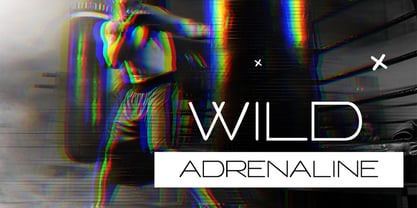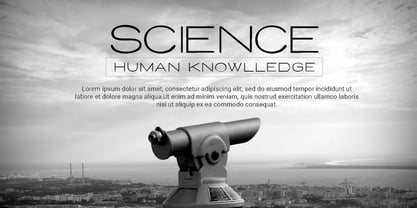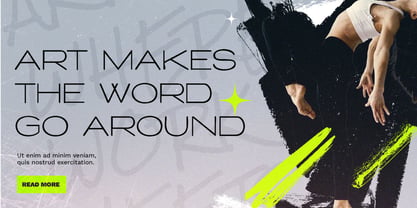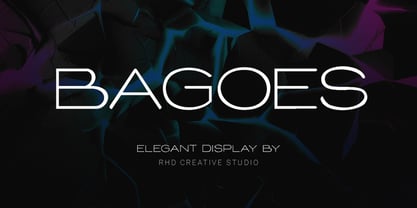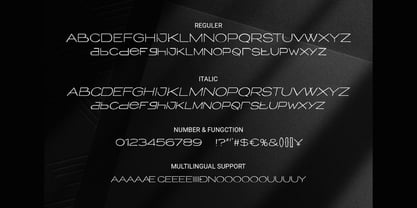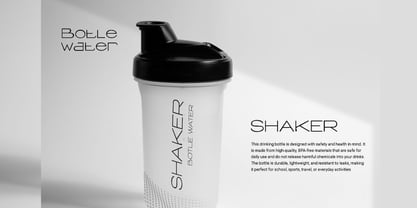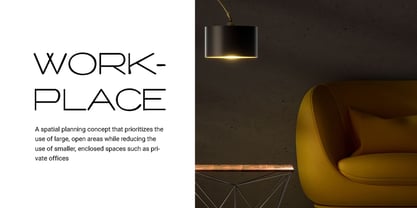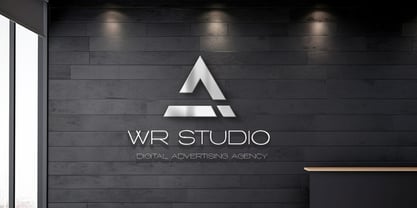
Bagoes
by RHD Creative
Hello everyone, I would like to introduce BAGOES - Elegant Display Font. BAGOES - Elegant Display Font with Handmade character. BAGOES - Elegant Display Font, Modern font to make your design project stand out! BAGOES a perfectly choice for any creative endeavor, creating, modern, chic, lifestyle design such as logotype, title, cover, branding, invitations, wedding designs, display and magazine, social media posts, advertisements, printed quotes, product packaging, corporate brand, product designs, labels, photography, watermarks, special events and any other project with modern touch. Thank you for your purchase! Hope you enjoy with our font!